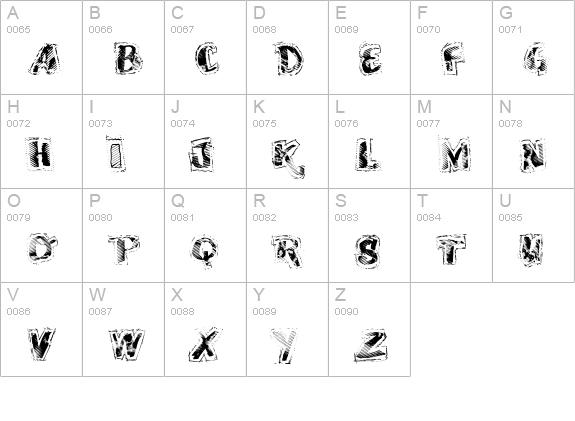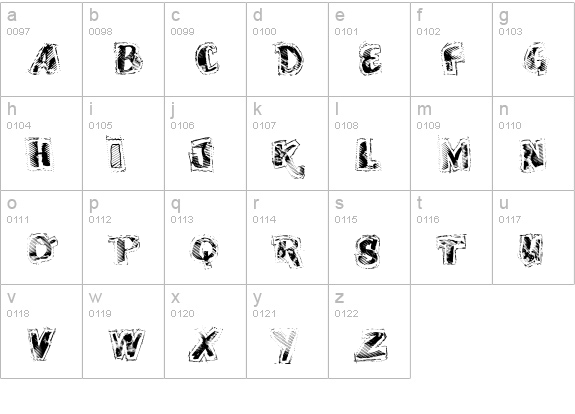
VTKS SCRUBBED Font Details
VTKS SCRUBBED font exudes a playful and handcrafted charm that is perfect for adding a touch of whimsy to your designs. With its irregular strokes and quirky style, this font is sure to stand out and grab attention. The unique handmade quality gives a personal touch to any project, making it a versatile choice for a variety of creative endeavors. Best of all, VTKS SCRUBBED is free to download at FontsMarket.com, allowing you to easily access this delightful font and unleash your creativity without any cost. Elevate your designs with the charming and distinctive VTKS SCRUBBED font today!